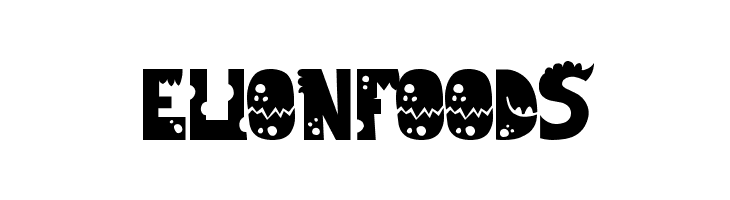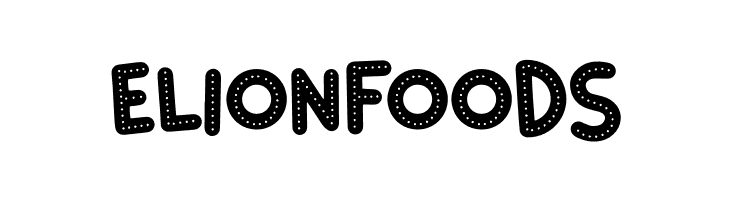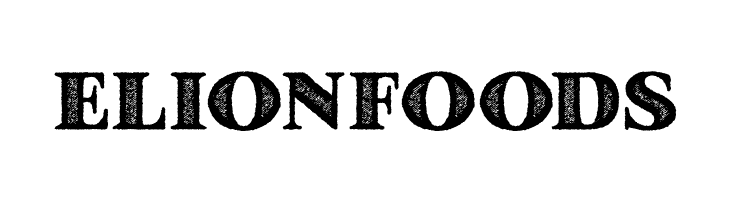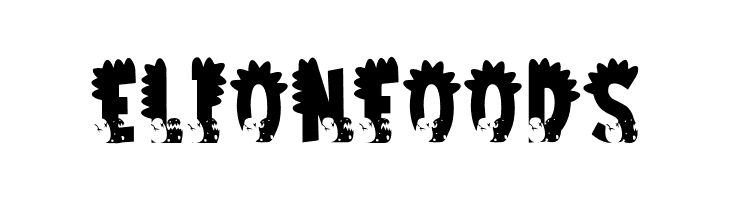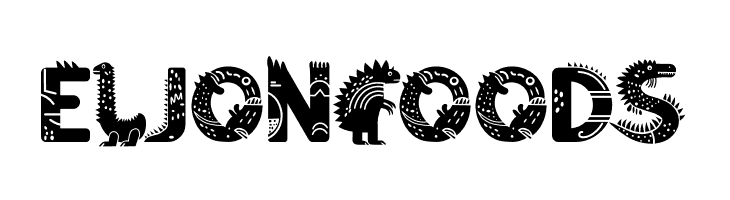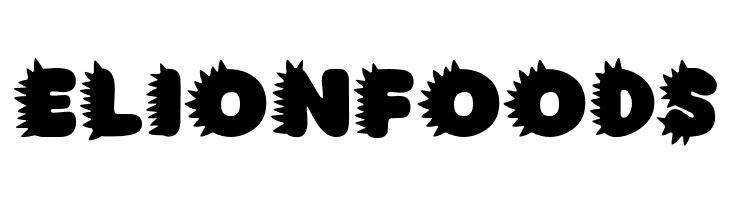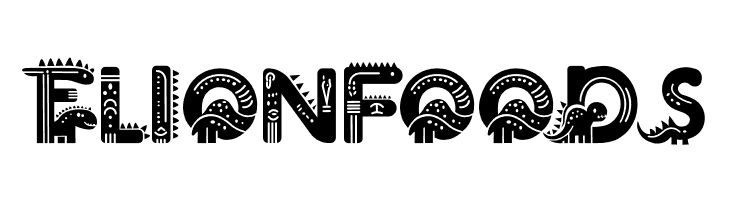
( Fonts by Billy Argel Fonts ® )
A bold, decorative font with intricate flourishes, perfect for elegant and eye-catching designs.
( Fonts by The Docallisme )
A playful, bold font with dotted outlines, perfect for lively and engaging designs.
( Fonts by Adevio Studio )
A bold, dinosaur-themed decorative font with playful embellishments.
( Fonts by Kong Font )
A bold, dinosaur-themed font with spiky, decorative letters.
( Fonts by Kong Font )
A bold, dinosaur-themed font with playful, rugged edges.
( Fonts by Kong Font )
A dinosaur-themed decorative font with playful, bold characters.
( Fonts by Kong Font )
A playful, dinosaur-themed font with creative and whimsical letterforms.